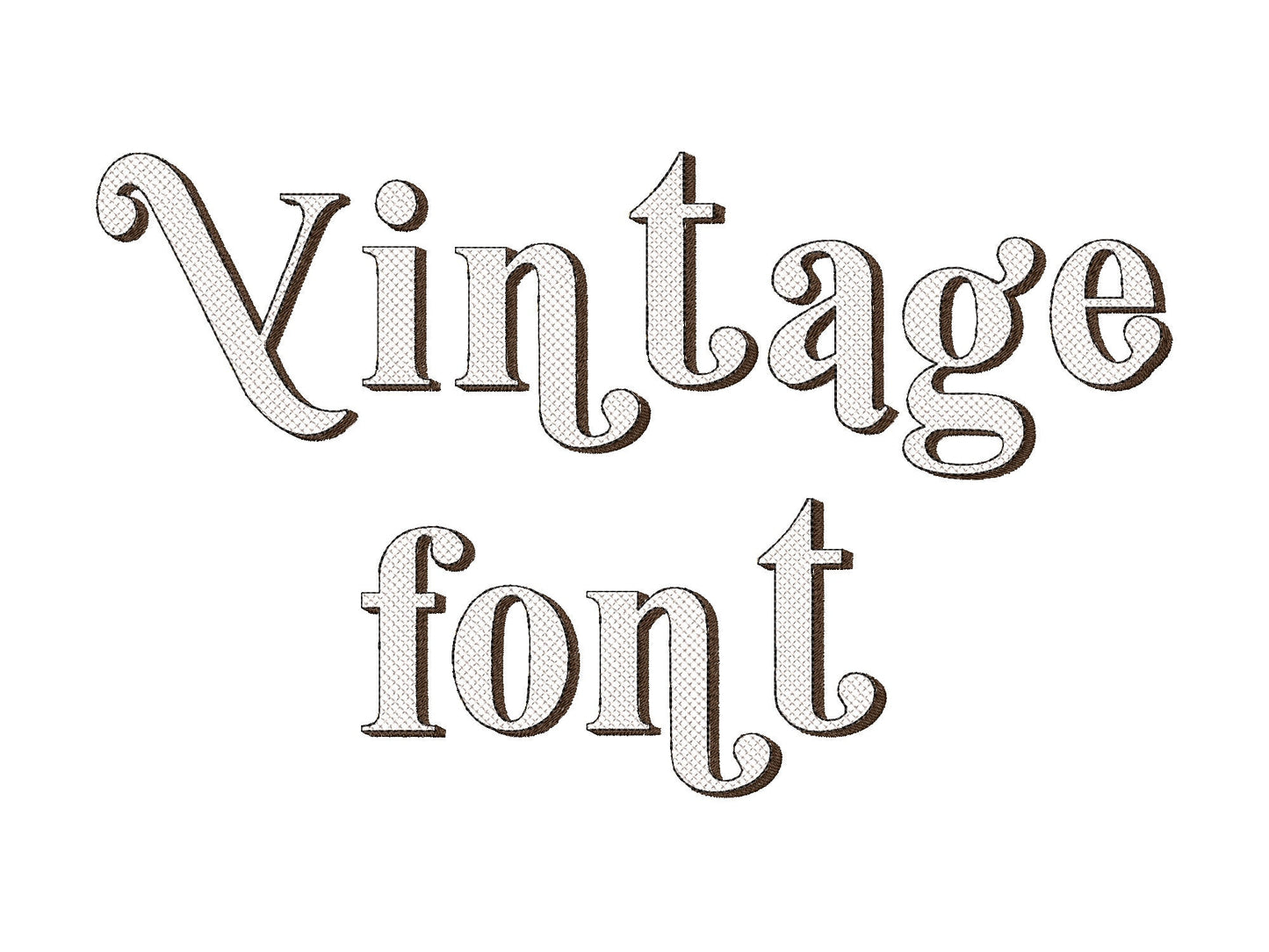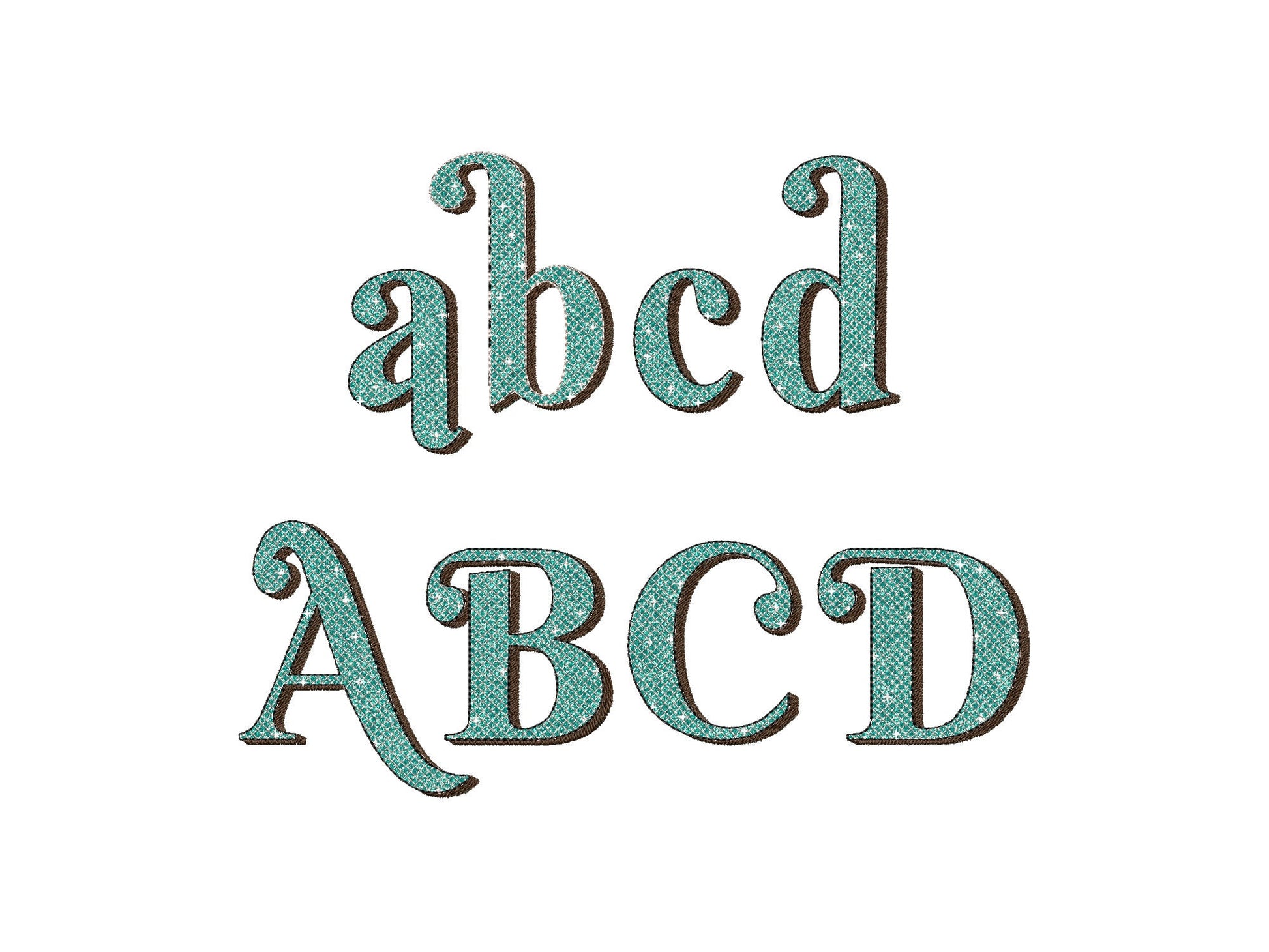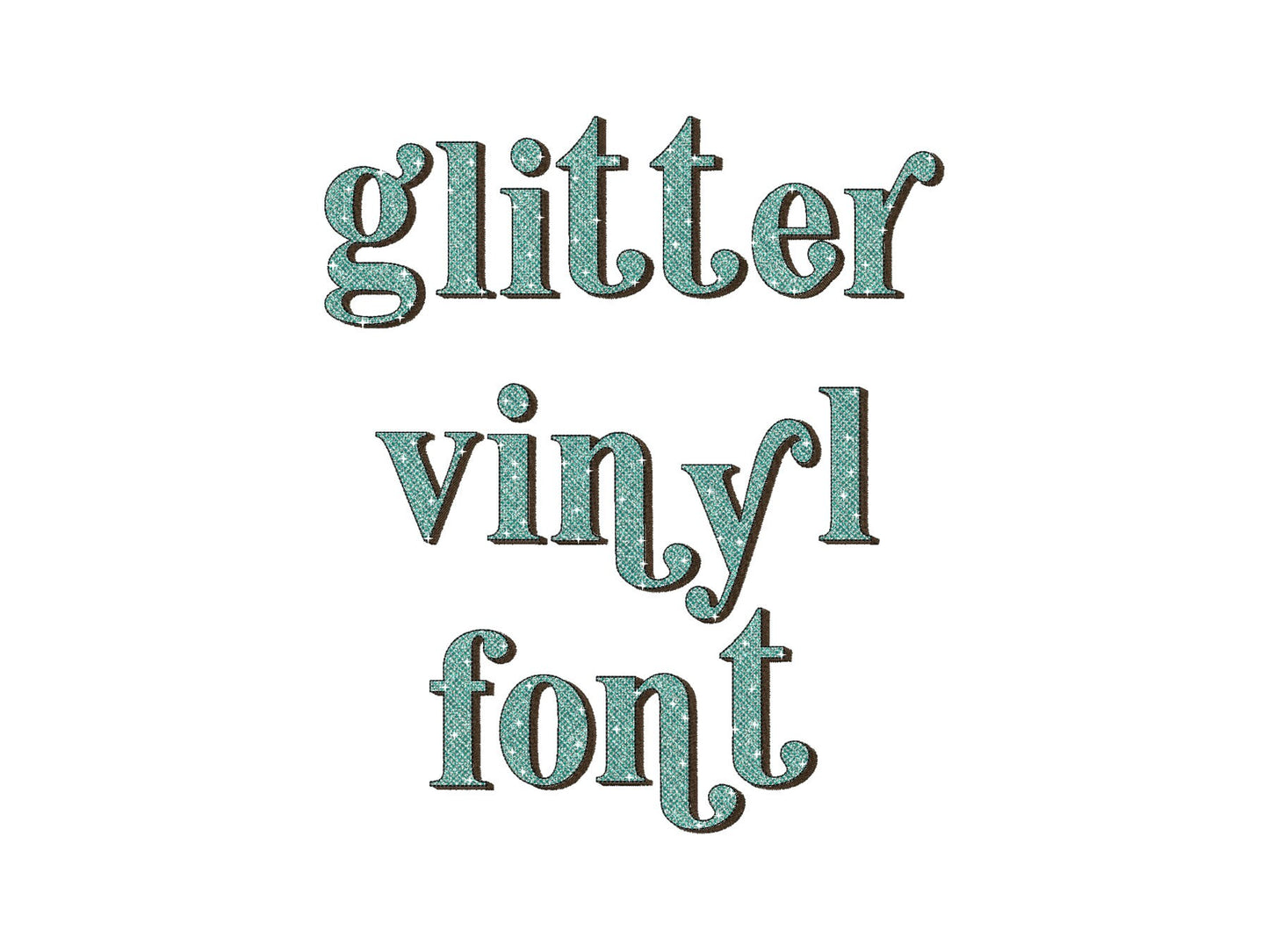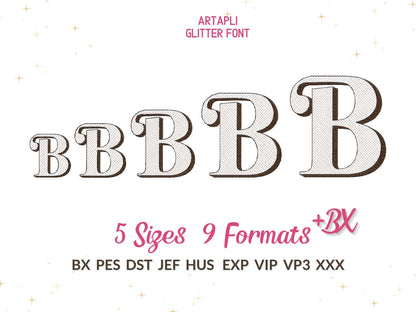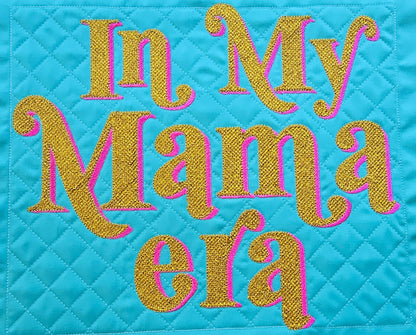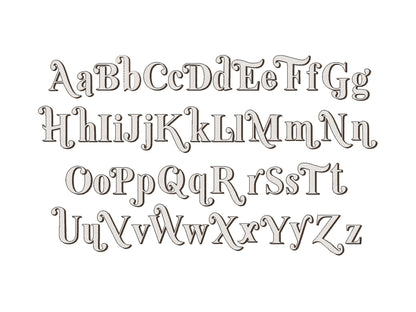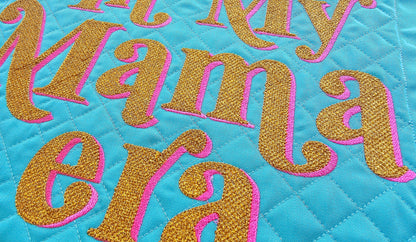
Or click to open the linkA vintage retro glitter vinyl font, for sparkly names and words on shirts, sweatshirts and bags.
Stitch over glitter heat transfer vinyl, then press it on with a heat press or iron. Uppercase and lowercase letters in five sizes: 1.8, 2.3, 3, 3.7 and 4.4 inches.